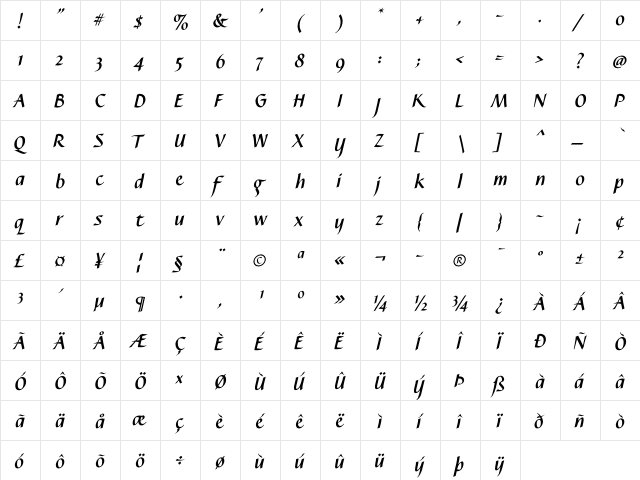
Caterina Bold Italic Font Preview
Design Context for Caterina Bold Typeface
Caterina Bold takes a measured approach to typography — its balanced proportions and neutral character make it a reliable workhorse for both digital and print work. Its italic angle brings a sense of urgency and motion to the letterforms. Its bold stroke weight gives it real presence on the page.
Pro Tip: Try Caterina Bold for annotation and caption copy alongside an upright companion — the contrast in angle creates a dynamic but ordered typographic system.